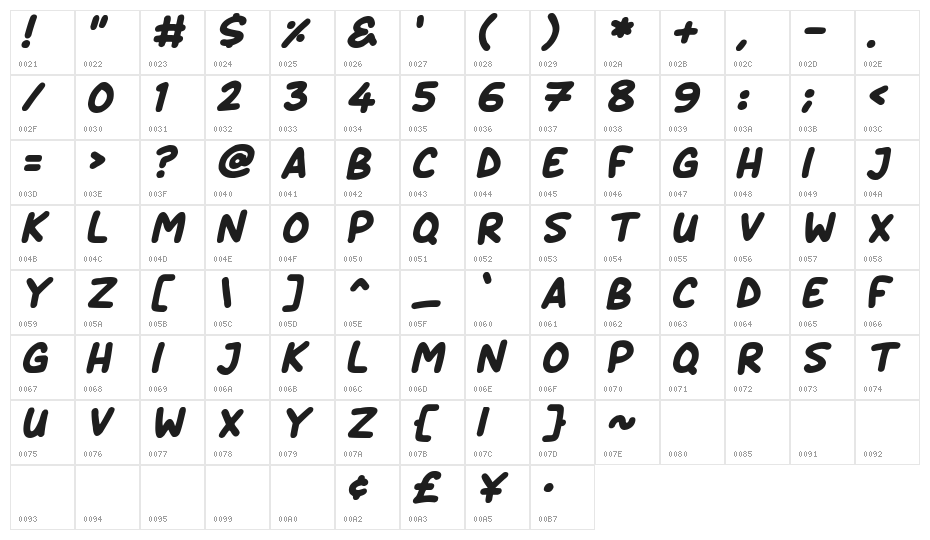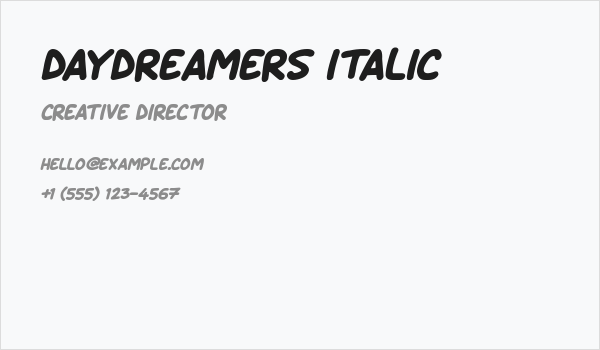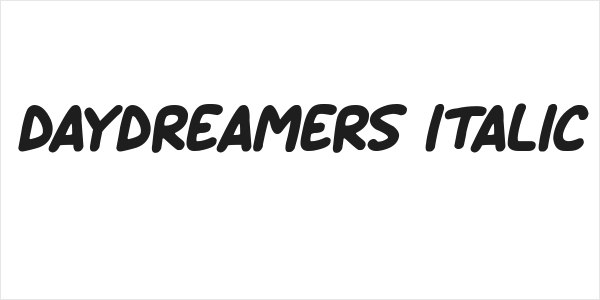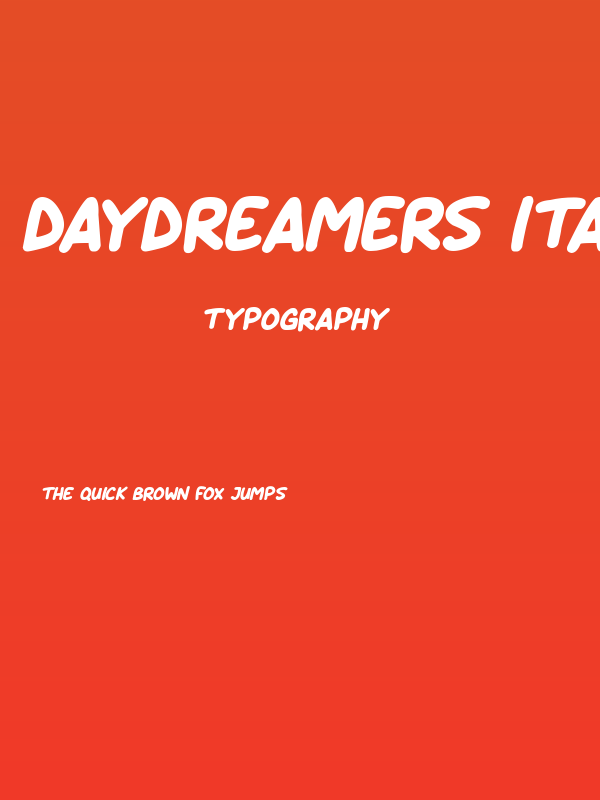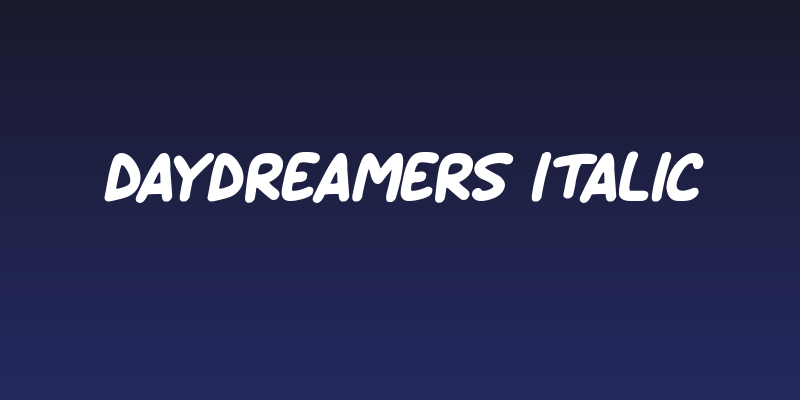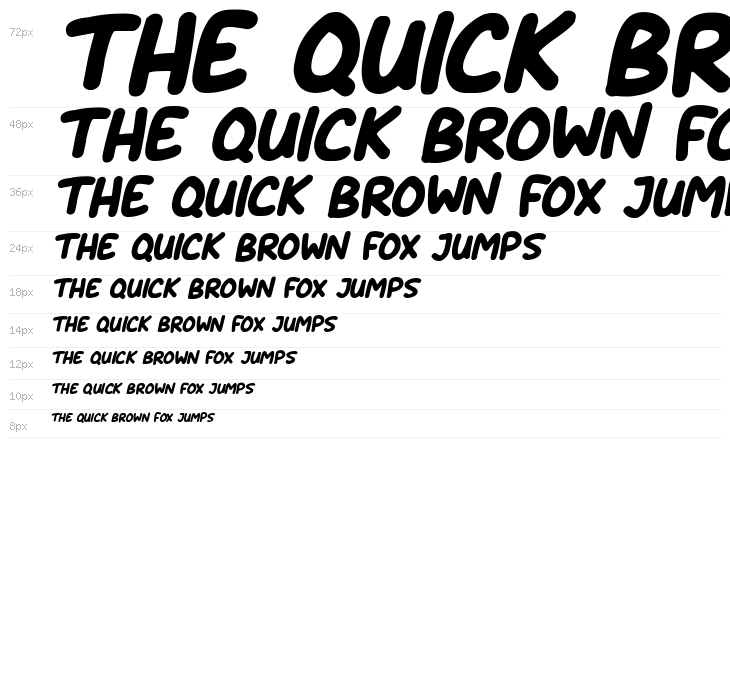
Daydreamers Italic Font
Daydreamers Italic Description
This font exudes a playful and energetic vibe with its bold, rounded characters and smooth, flowing lines. The italic style adds a sense of motion and dynamism, making it feel lively and engaging. Each letter is crafted with a consistent thickness, giving it a uniform appearance while maintaining a sense of individuality through its slightly exaggerated curves and angles. The numbers and special characters follow the same design principles, ensuring a cohesive look across all elements. Its boldness and unique style make it stand out, perfect for capturing attention.
| Overall Style | Playful, Energetic |
| Proposed Projects | Ideal for children's books, playful branding, posters, and creative projects that require a lively and engaging typeface. |